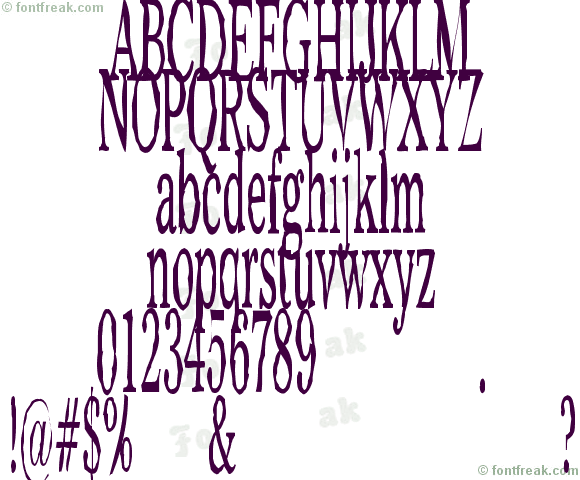
ChillyMoe
Chilly Moe is a captivating display font designed by Omega Font Labs, blending a unique character with a touch of whimsy. This shareware font boasts an artistic flair that sets it apart from conventional typefaces. With its decorative style, Chilly Moe embodies a playful yet sophisticated aesthetic, making it a perfect choice for projects that require a distinctive visual impact. The font features a medium stroke weight, providing a balanced contrast that ensures readability while still standing out. Its slightly irregular shapes and flowing lines contribute to a lively, inviting appearance, making it suitable for a variety of creative applications.
Ideal for use in wedding invitations, Chilly Moe adds an element of charm and personalization that resonates well with couples seeking to convey their unique style. Additionally, it works wonderfully for movie posters, where its bold presence can capture the attention of potential viewers. Restaurant menus can also benefit from the font’s inviting character, enhancing the dining experience by setting a warm and welcoming tone. Content creators and graphic designers will find Chilly Moe particularly appealing for branding projects or social media graphics, as it adds a touch of creativity to any design.
Chilly Moe's target audience includes graphic designers, small business owners, and content creators who are looking for a font that can elevate their projects with a distinctive twist. Its shareware licensing allows for flexible use, encouraging creativity without the constraints of traditional licensing.
What truly makes Chilly Moe stand out is its ability to balance playfulness with elegance, making it versatile enough for both formal and informal contexts. This font promises to inject personality into your designs, ensuring that your projects are not only visually appealing but also memorable. Don’t miss the chance to explore the Chilly Moe font free download and elevate your design work today.